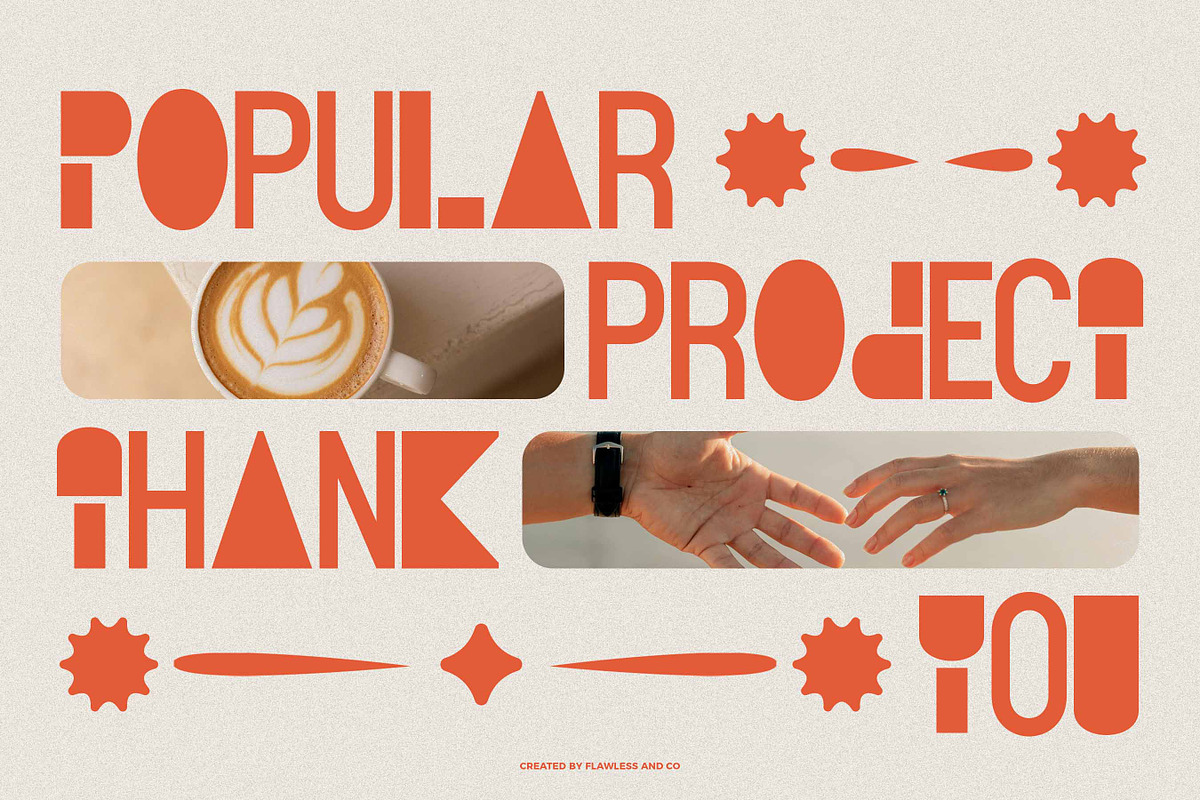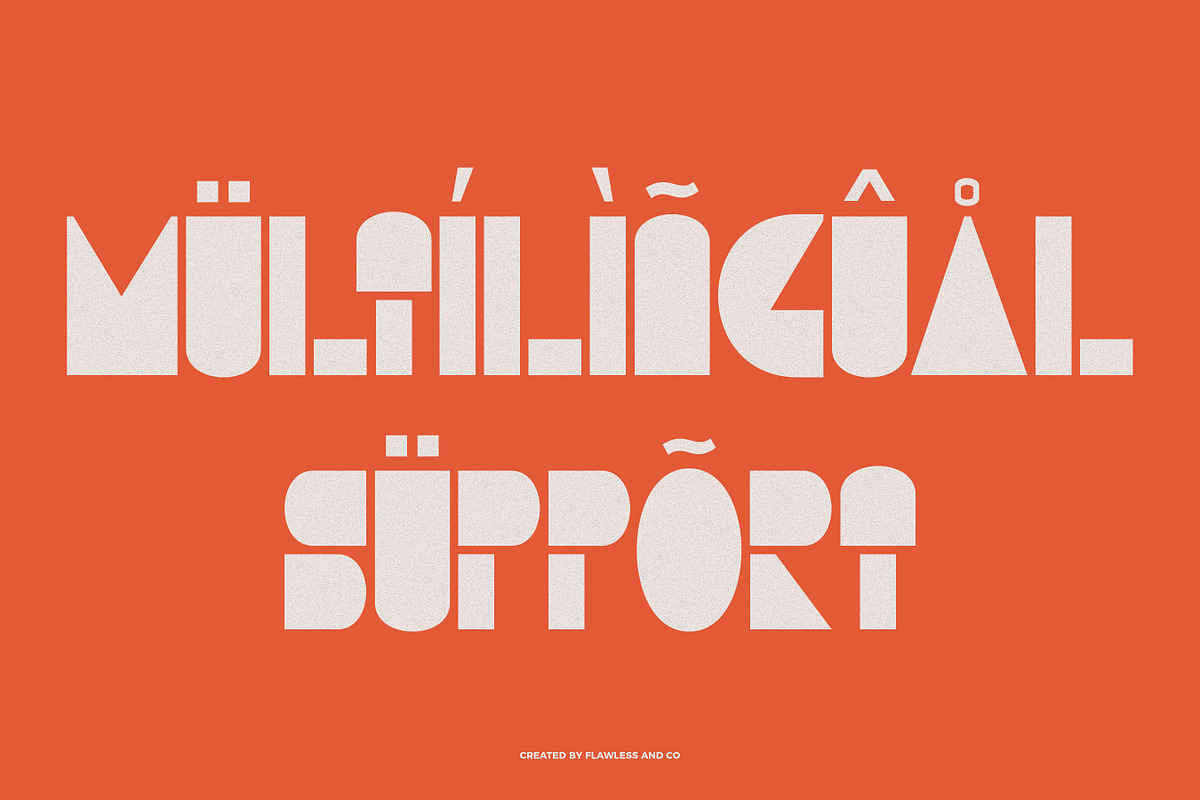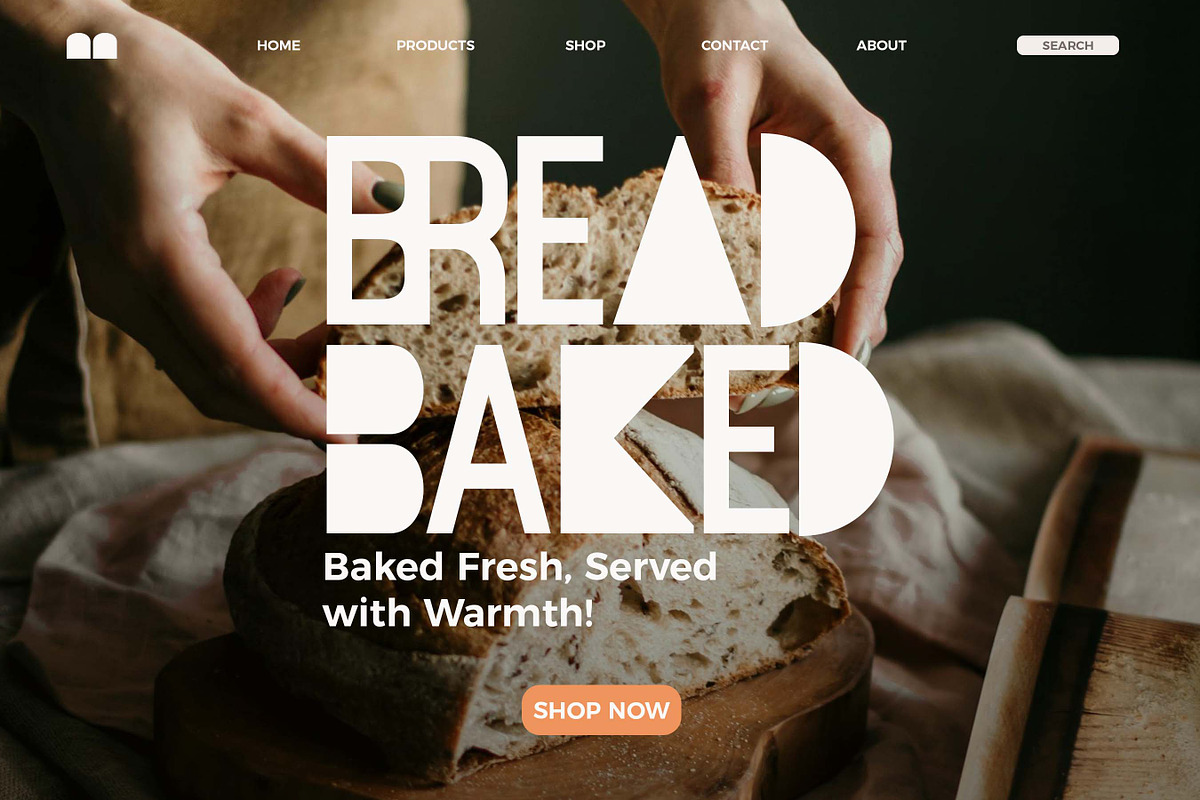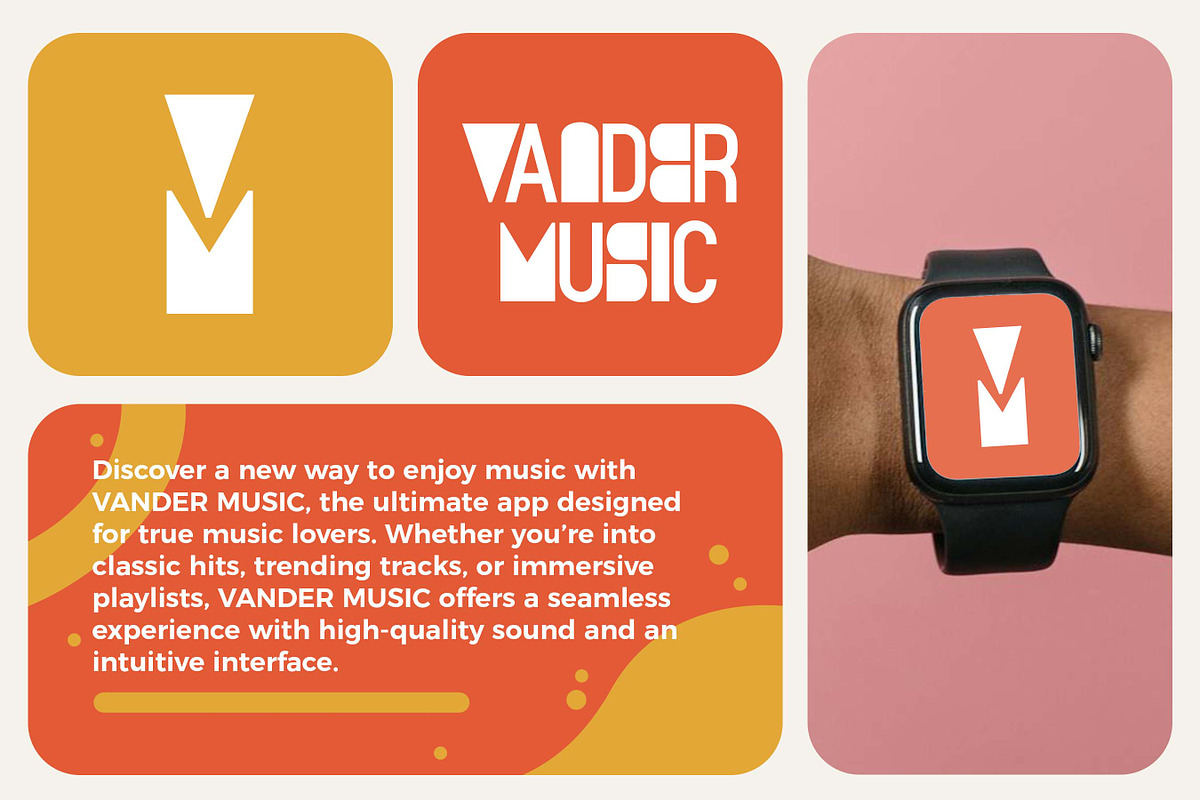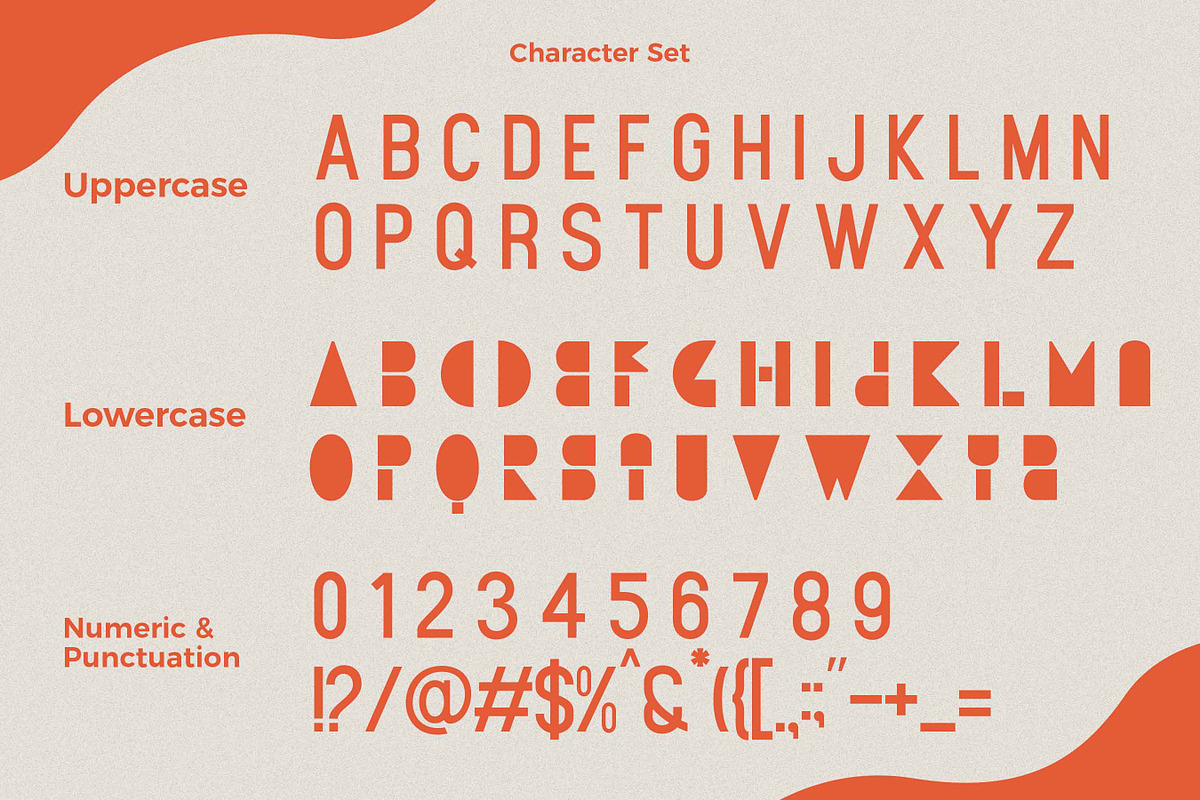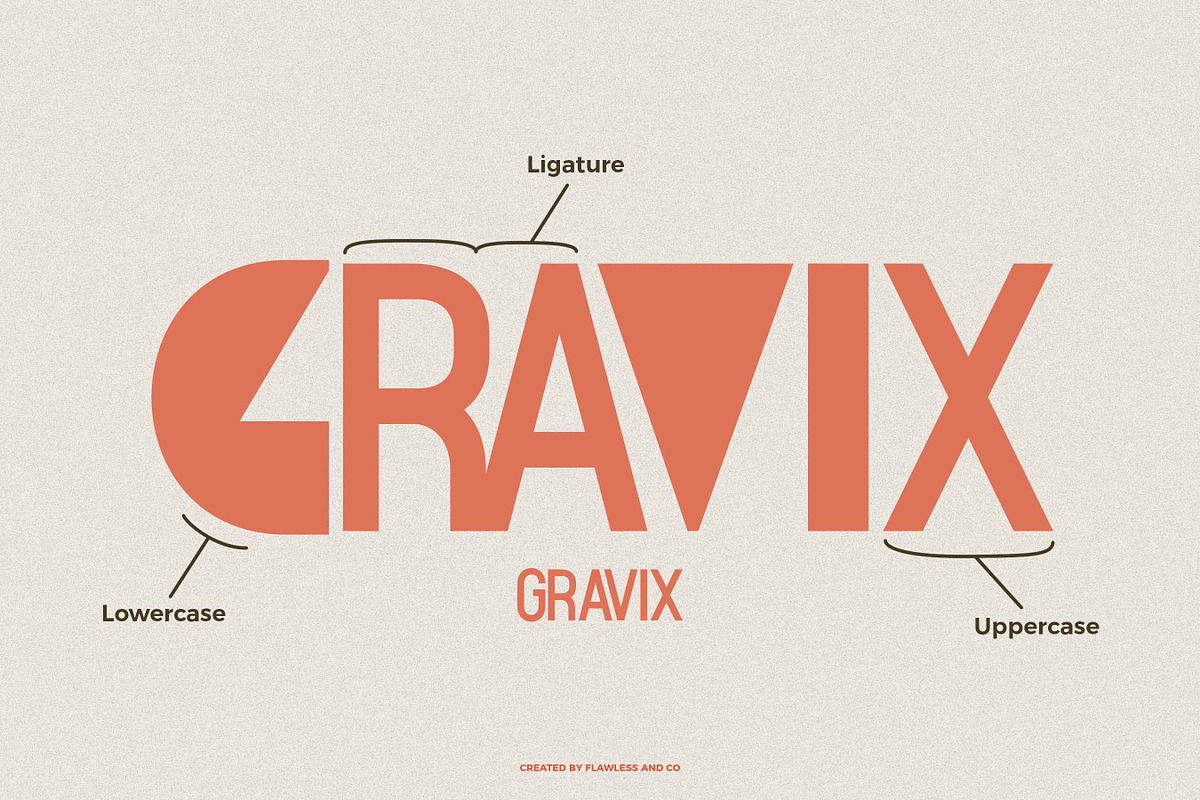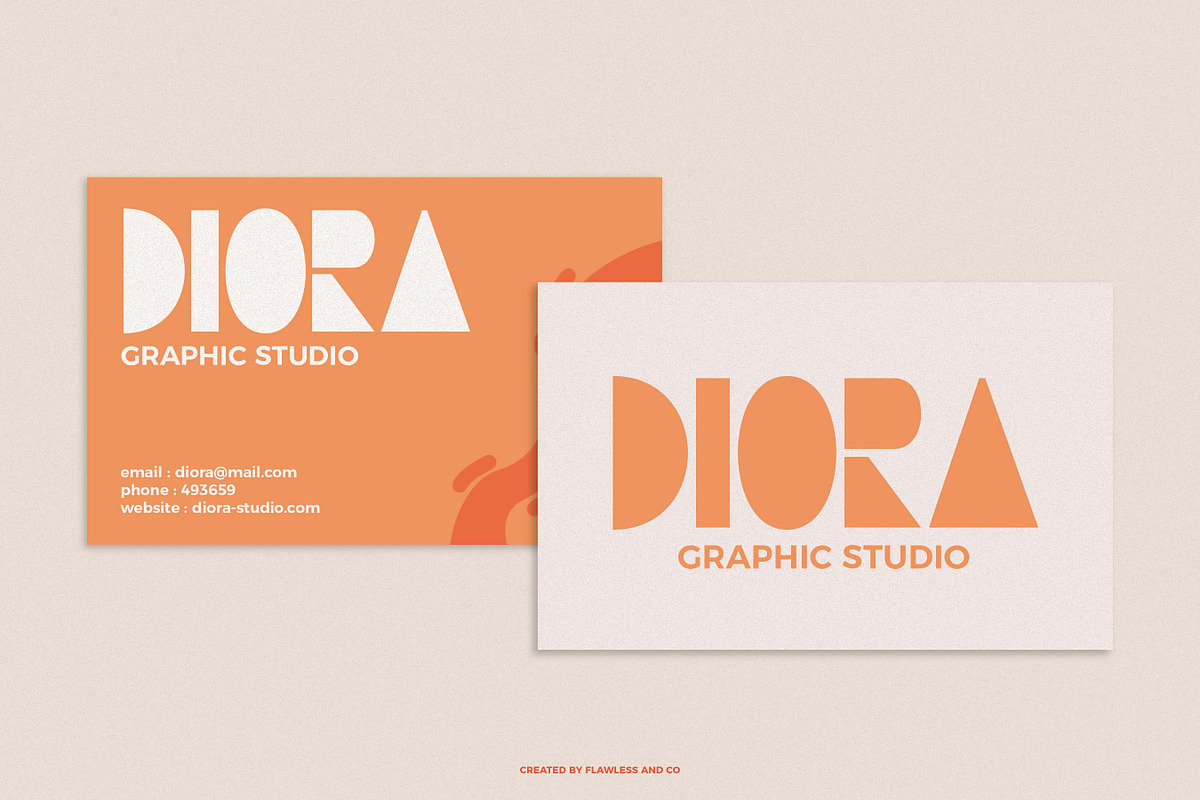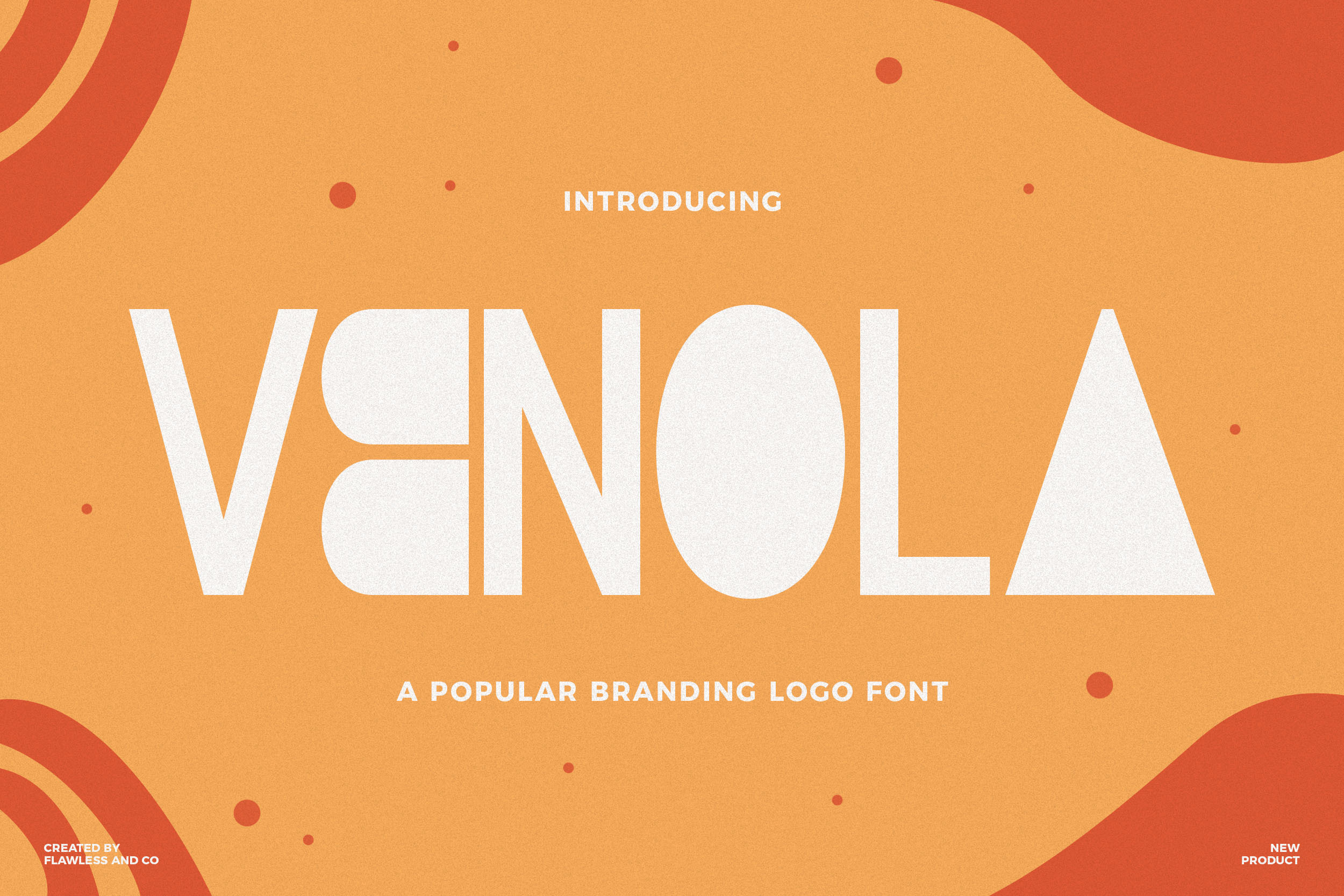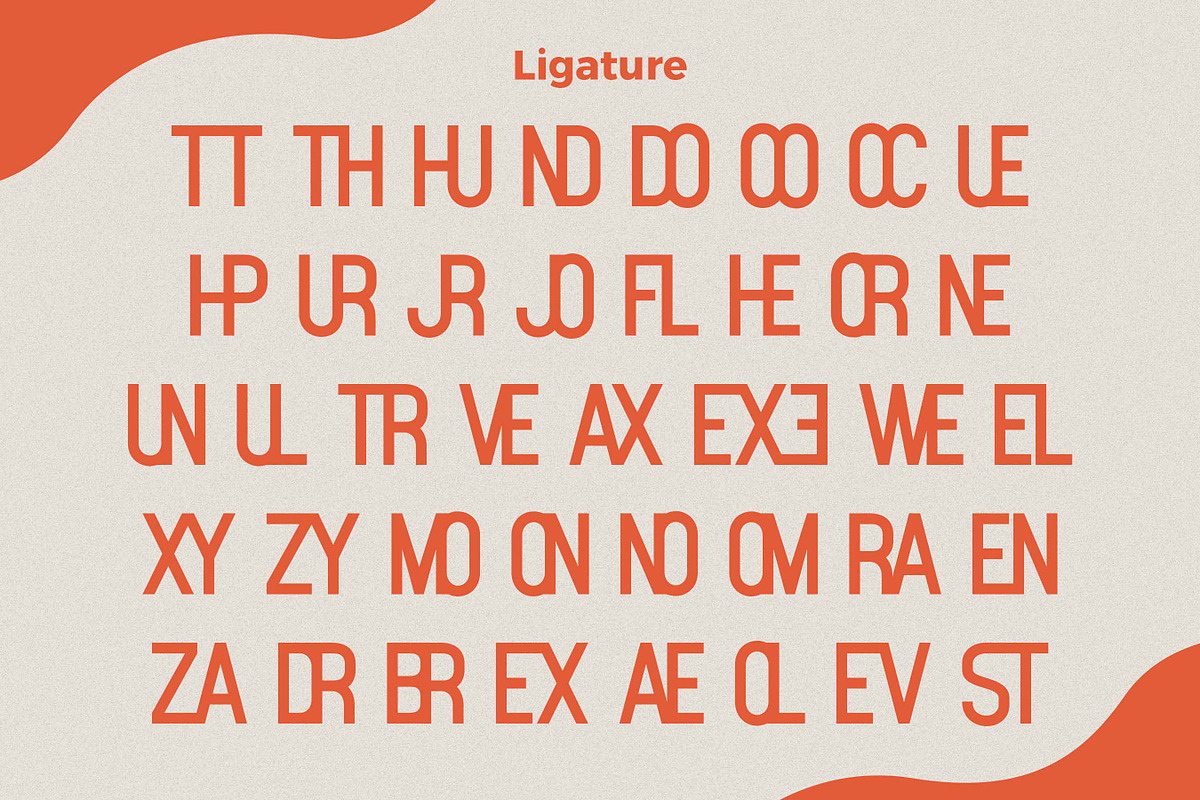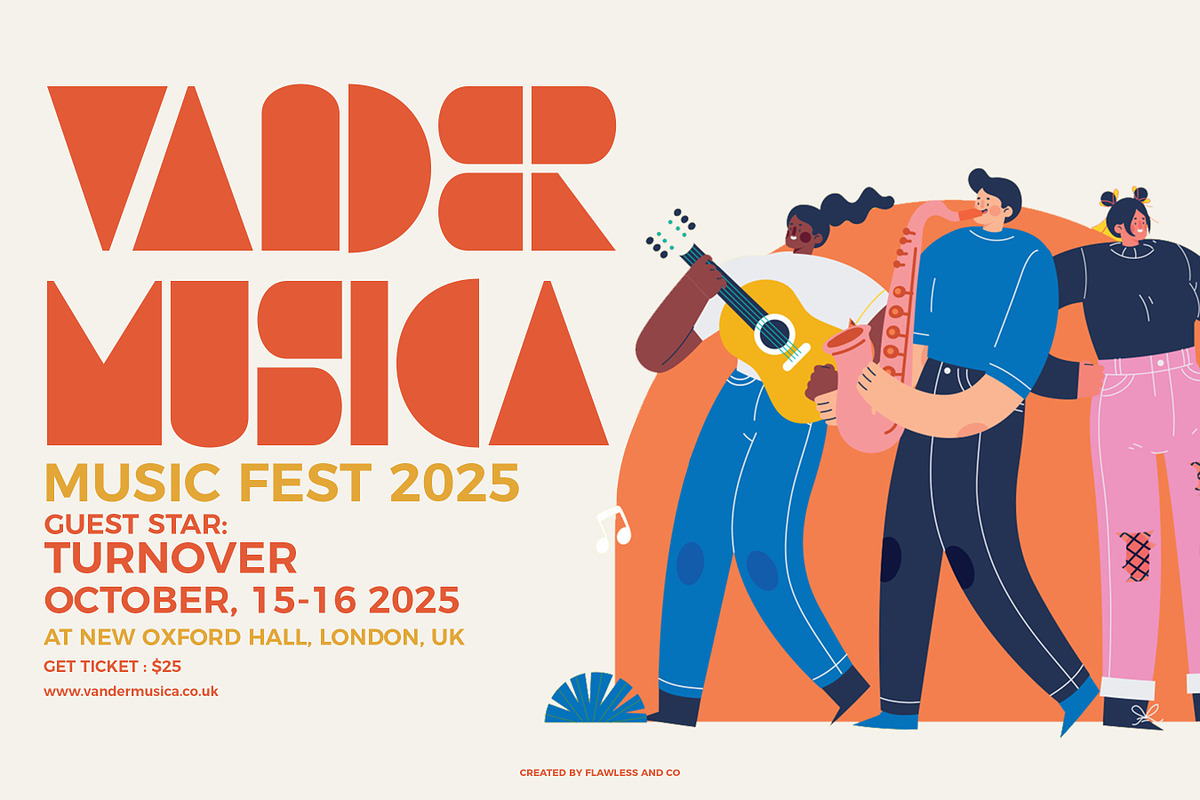
Venola - Branding Logo Font
Introducing Venola – Branding Logo Font
Venola is a sophisticated branding logo font that combines modern elegance with timeless simplicity. Designed with smooth curves and refined proportions, Venola is perfect for crafting high-end logos, brand identities, product packaging, and editorial designs. Its sleek and versatile character makes it an ideal choice for businesses aiming for a distinctive and professional look.
Make your brand stand out with the effortless charm of Venola. Whether you're designing a standout logo, premium packaging, modern website, or elevated social media content, Venola is ready to bring bold clarity and timeless sophistication to your brand visuals.
- All-caps letters with clean, stylish form
- Let Venola elevate your identity with sleek professionalism and a distinctive, confident voice.
Who Should Use Branding logo Font Venola? Venola is crafted for designers, entrepreneurs, and creatives who seek a modern, polished identity for their brand. Ideal for logo makers, design studios, beauty and fashion brands, boutique businesses, and premium product packaging—this font delivers a clean yet expressive voice that elevates your visual storytelling. If you're aiming to build a strong, stylish, and timeless brand presence, Venola is made for you.
A Must-Have Font for Brand and Logo Designers Venola isn’t just a font — it’s a branding essential. With its elegant curves and minimalist structure, Venola empowers designers to craft iconic, professional brandmarks with ease. Whether you’re building sleek logotypes, stylish packaging, or modern business identities, Venola offers the visual clarity and refined personality that every strong brand needs.
Why Choose Venola for Brand and Logo Projects? Because your brand deserves a typeface that speaks with clarity, confidence, and timeless style. Venola blends modern simplicity with elegant detail, making it the perfect choice for logos that need to feel premium yet approachable. Its clean lines and versatile letterforms allow your branding to shine across digital, print, and packaging—ensuring consistency, impact, and memorability in every use.